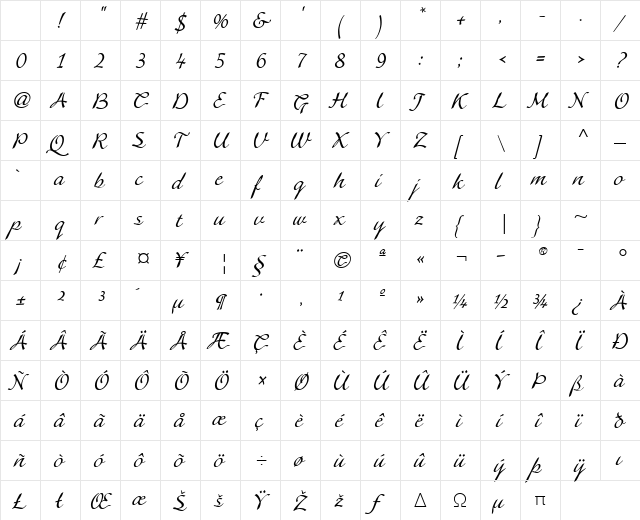
LTAgogo Regular
Design Context for LTAgogo
LTAgogo is a composed and adaptable typeface that performs quietly and consistently across a wide range of design contexts.